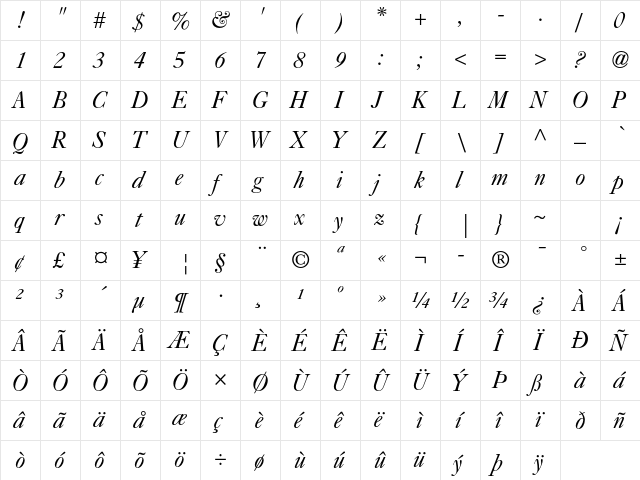
Caslon 540 LT Std Italic
| Designer | American Type Founders Staff |
Design Context for Caslon 540 LT Std Typeface
Caslon 540 LT Std is a composed and adaptable typeface that performs quietly and consistently across a wide range of design contexts. Its italic angle brings a sense of urgency and motion to the letterforms. The delicate stroke weight brings airiness and refinement to layouts.
Pro Tip: Try Caslon 540 LT Std for annotation and caption copy alongside an upright companion — the contrast in angle creates a dynamic but ordered typographic system.